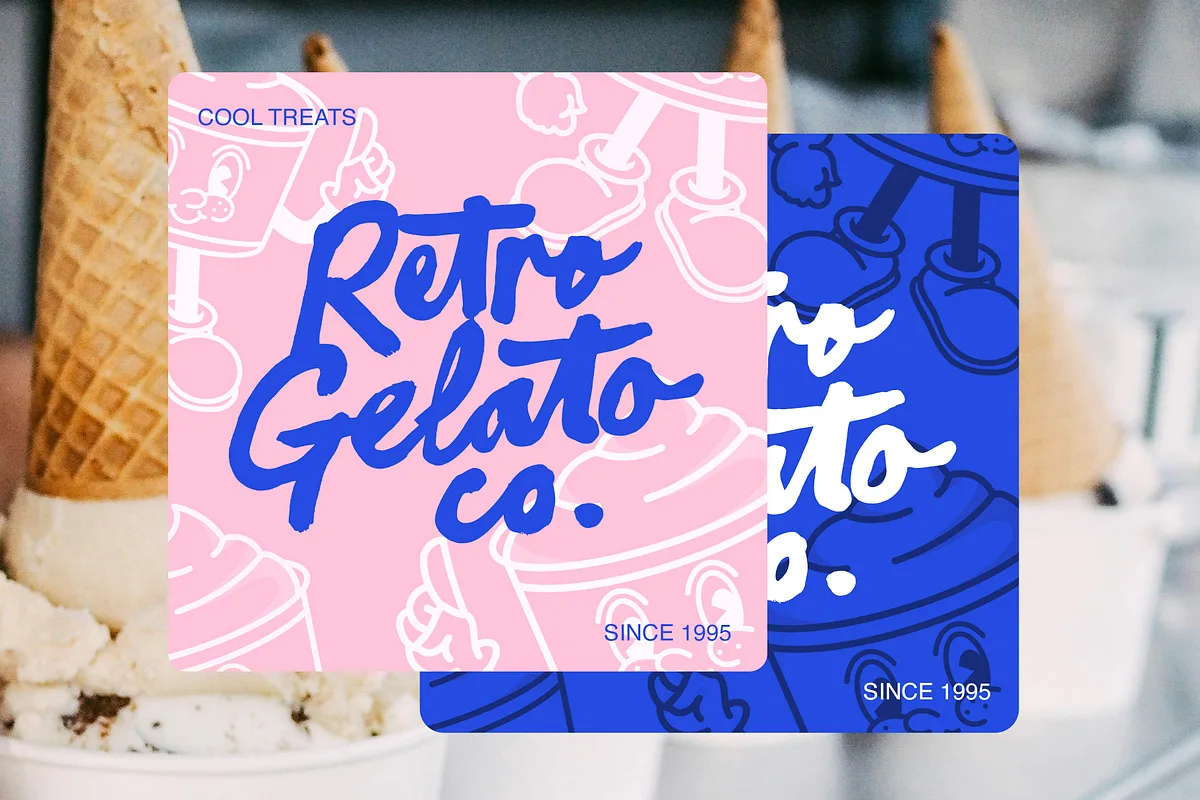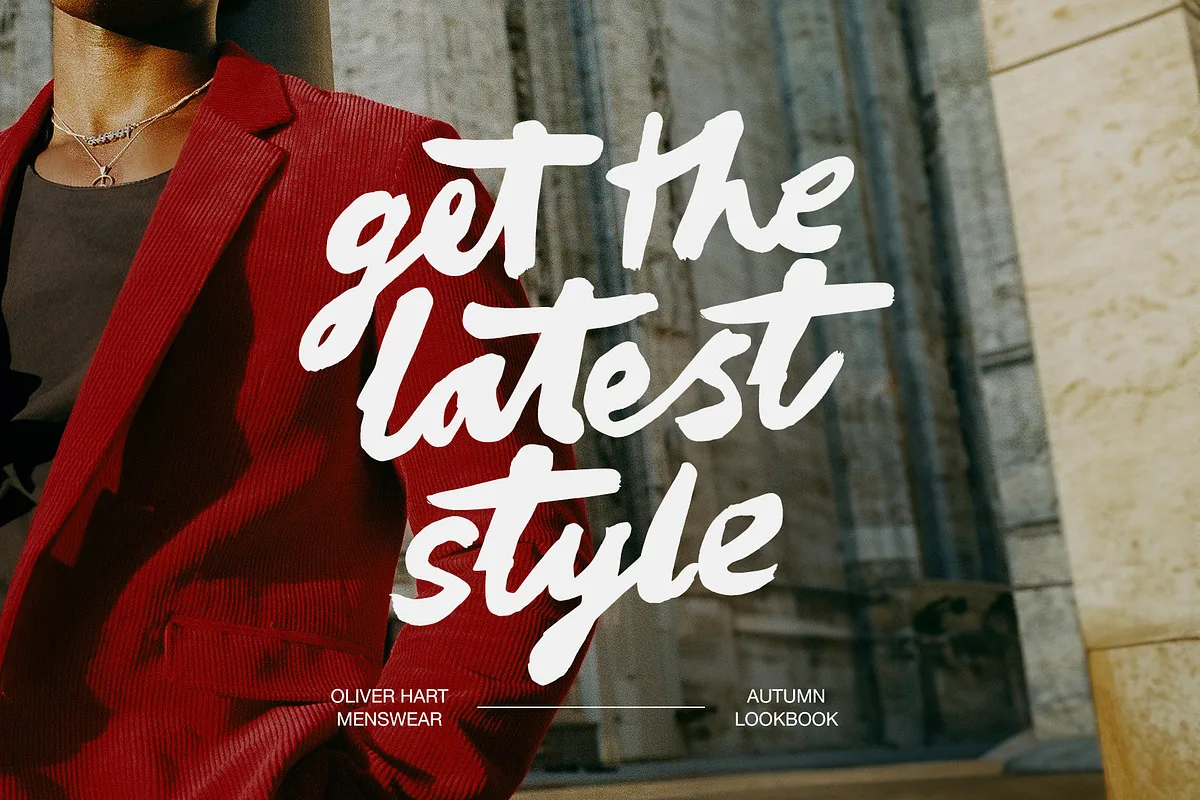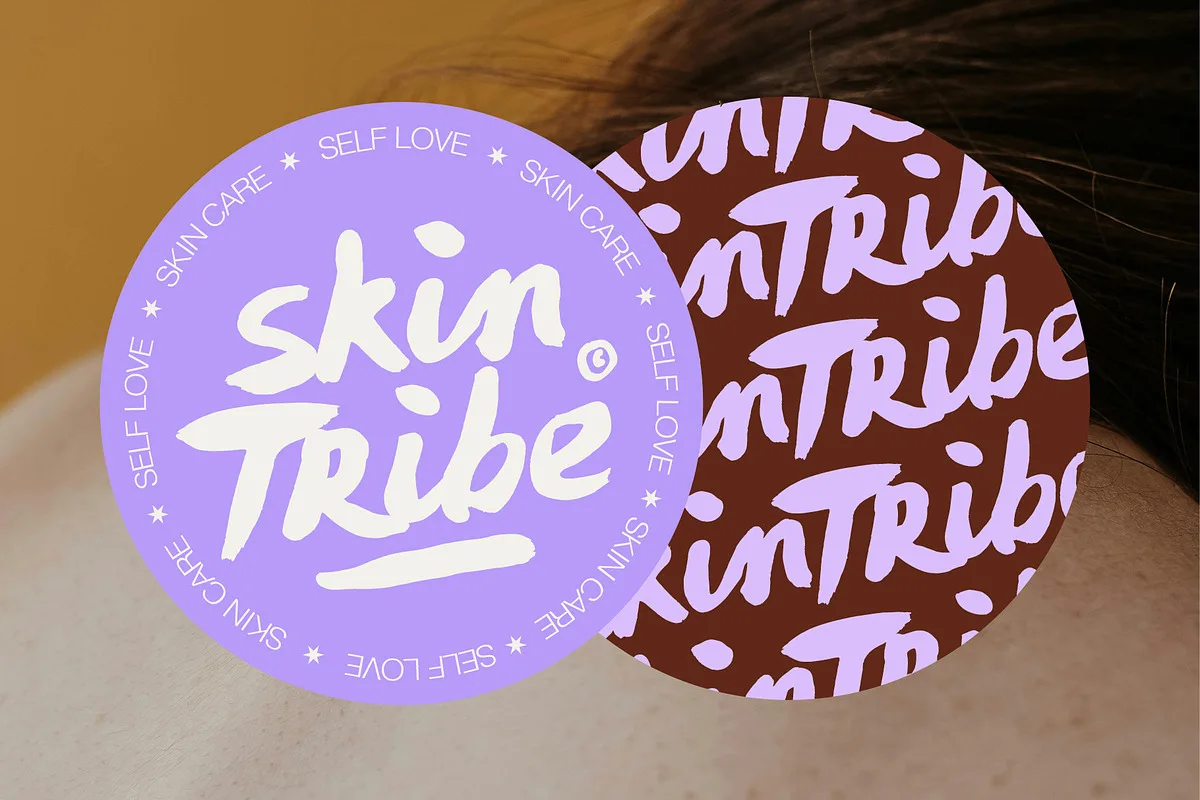
Amber Dawn Font
Amber Dawn Font is a lively, bold and characterful brush font with an untamed, carefree style. Hand painted with a real paintbrush and acrylic ink, this charismatic font maintains its hand crafted authenticity with its charmingly erratic brush strokes and textures. It’s an eye-catching choice for playful logos and branding, and retro-revival display text.
Amber Dawn includes Three sets of upper and lowercase characters provided in 3 separate fonts, as well as 29 ligatures, giving you a huge variety of layout options for each word and allowing you to create an incredibly natural looking hand-lettered design. Also included are 2 sets of each numerals (accessible in fonts One and Two), as well as a wide range of punctuation and multilingual support, resulting in a total of 482 glyphs included across all fonts.